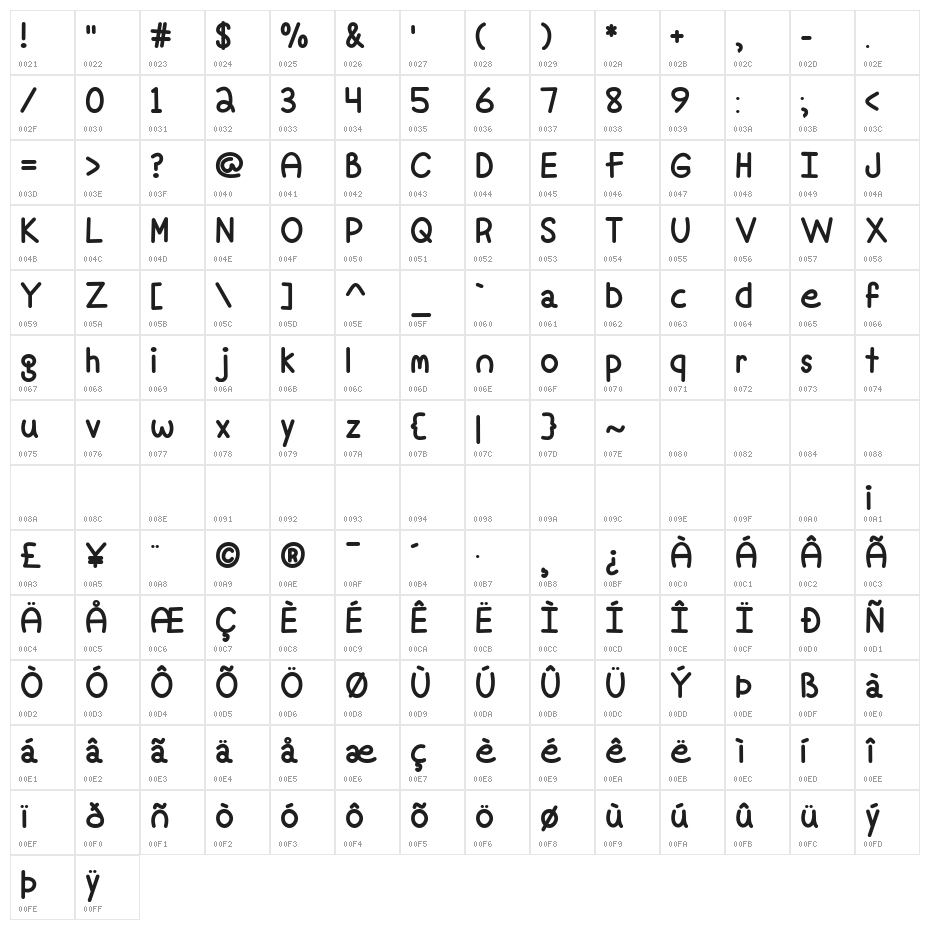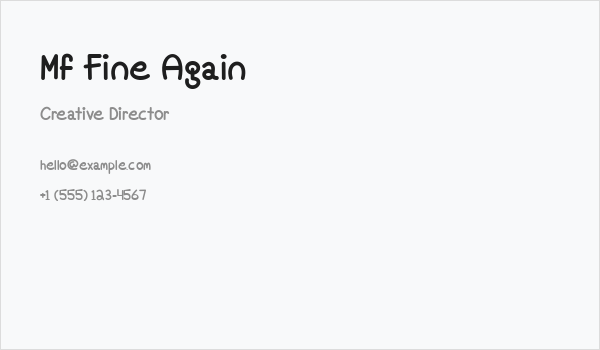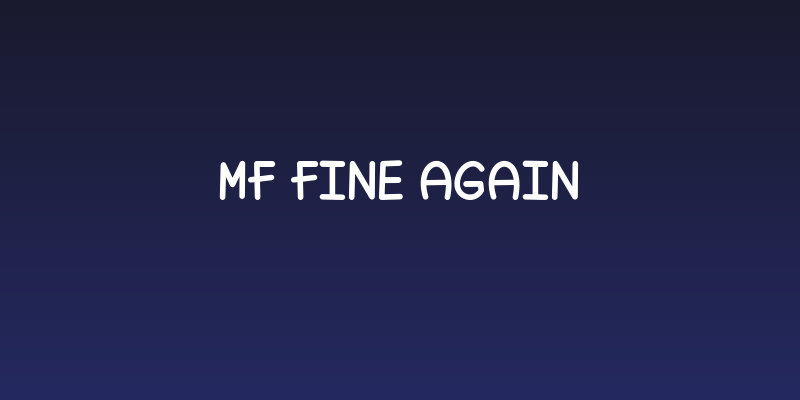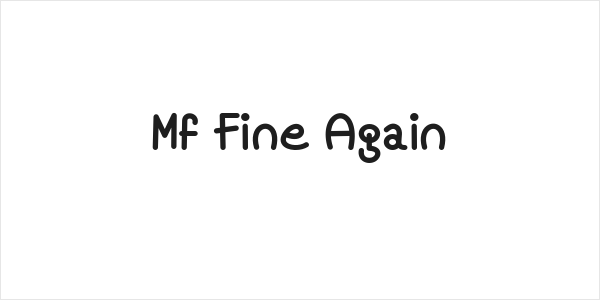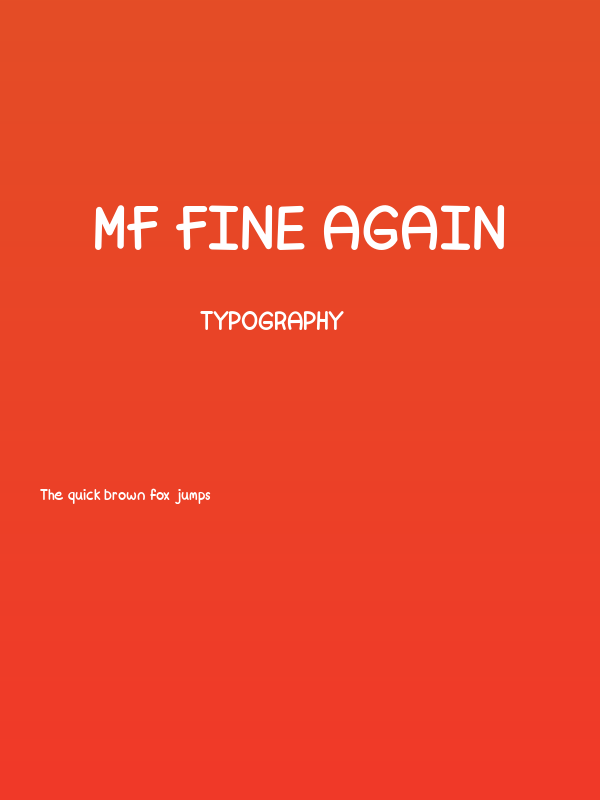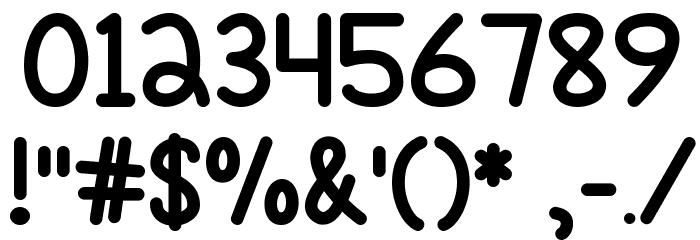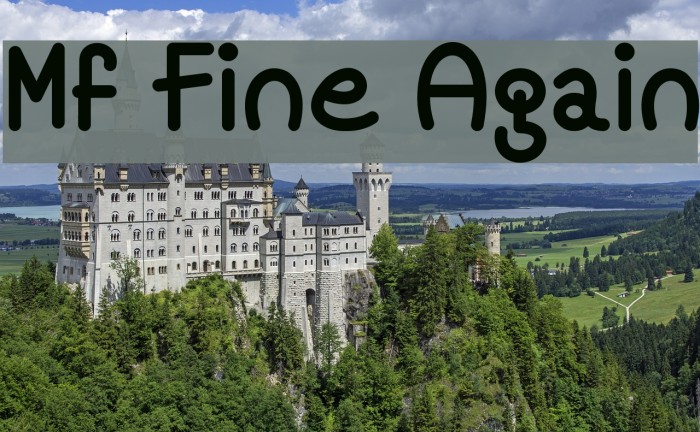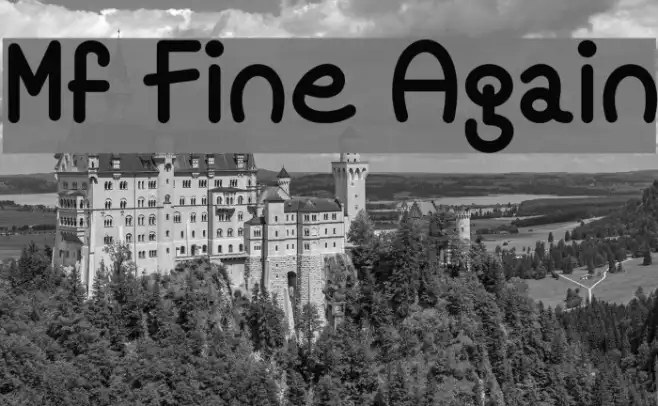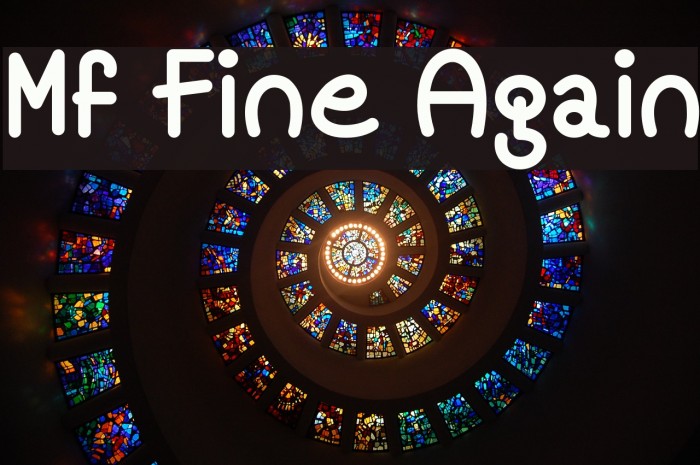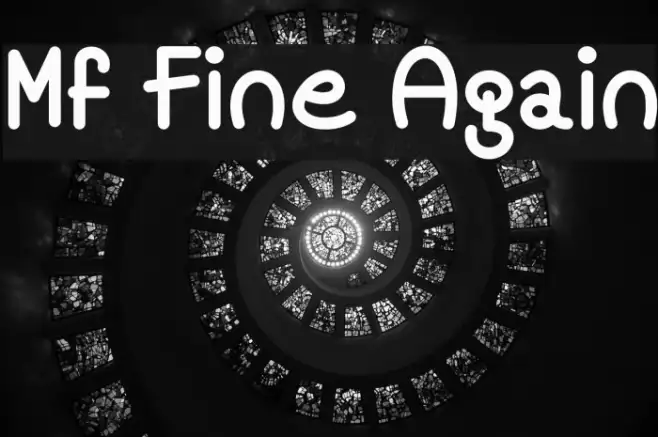
Mf Fine Again Font
Mf Fine Again Description
This playful and rounded font features a smooth, flowing design with a friendly and approachable appearance. The letters are evenly spaced with a consistent stroke width, creating a harmonious and balanced look. The uppercase and lowercase characters maintain a uniform style, while the numerals and special characters complement the overall design. The font's rounded edges and lack of sharp angles contribute to its casual and informal feel, making it suitable for a variety of creative projects.
| Proposed Projects | Ideal for children's books, playful branding, casual invitations, and creative posters. |